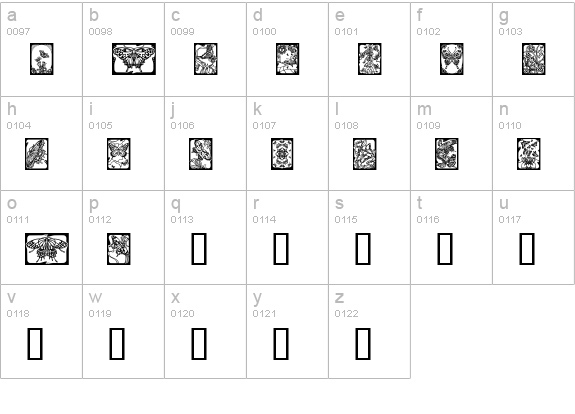
Butterflies Font Details
The Butterflies font is a whimsical and elegant typeface that captures the delicate beauty of fluttering butterflies. Its graceful curves and intricate details evoke a sense of lightness and enchantment, making it perfect for adding a touch of charm to your designs. This font is free for personal and commercial use, and is available to download at FontsMarket.com. Embrace the ethereal beauty of Butterflies font and let your creativity take flight.